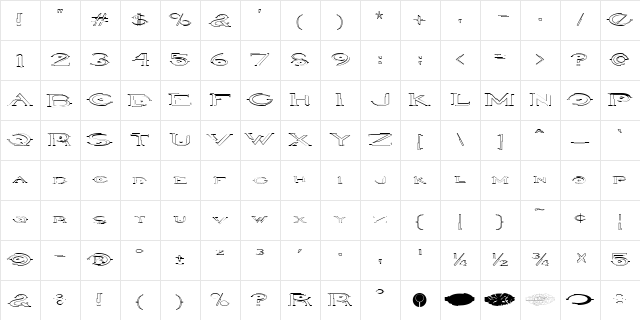
Halo Outline Regular Font Preview
Halo Outline Regular
Halo Outline Regular Font Details
Design Context for Halo Outline Typeface
Halo Outline is built around its visual character rather than neutral utility — its distinctive forms are designed to make an impression at display sizes.
Font Pairing: Pair with a clean neutral sans-serif for body copy to let Halo Outline's character lead without overwhelming the composition.
Pro Tip: Use Halo Outline exclusively at display sizes — it was designed to be seen, not read at length. Let a neutral companion handle body copy.